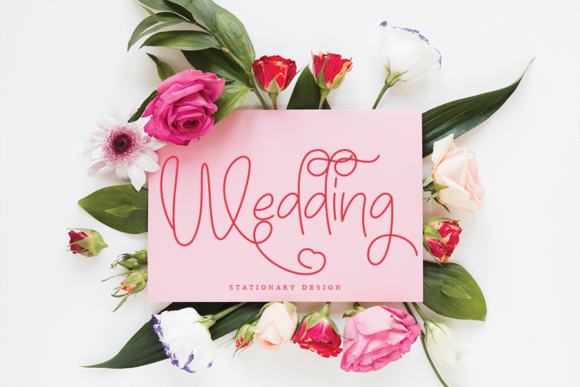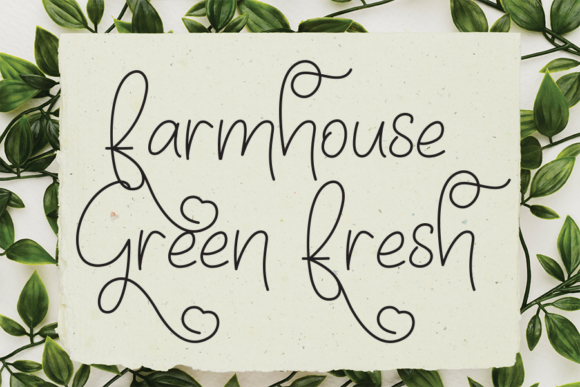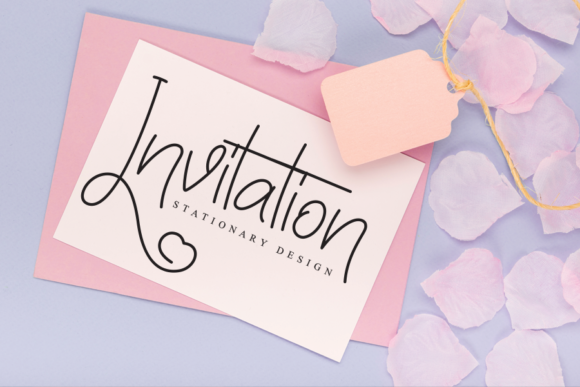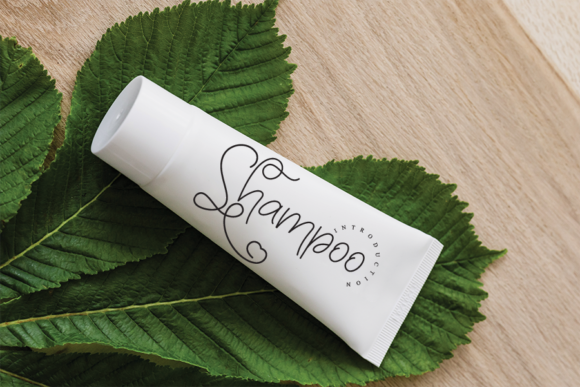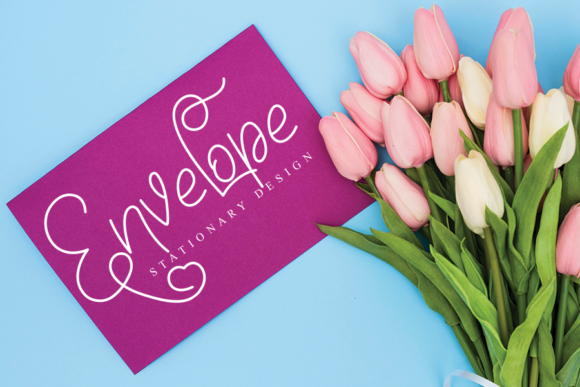
About Makagifa Font
Introducing “Makagifa,” an elegant and flowing handwritten font that exudes beauty and grace. With its well-balanced characters and captivating style, this font is perfect for a wide range of design projects, including logos, stationery art, quotes, book covers, magazines, branding, and much more.
The elegant and flowing nature of “Makagifa” makes it an excellent choice for logos. Its smooth and graceful curves add a touch of sophistication to your brand identity. Whether you’re designing a logo for a boutique, a creative agency, or a personal brand, “Makagifa” will lend a sense of elegance and professionalism to your designs, making them stand out from the crowd.
Stationery art becomes a true masterpiece with the help of “Makagifa.” Its beautiful and well-balanced characters make it a perfect choice for creating stunning designs on various stationery items, including art prints, notecards, letterheads, and more. The elegant and flowing style of “Makagifa” adds a touch of sophistication to your stationery, making it more visually appealing and memorable.
Quotes take on a whole new level of beauty with the use of “Makagifa.” Its flowing and graceful letters bring your words to life, creating a sense of harmony and balance. Whether you’re creating social media graphics, quote posters, or inspirational prints, “Makagifa” will add an elegant touch to your quotes, making them visually captivating and impactful.
Book covers and magazines become visually striking with the addition of “Makagifa.” Its elegant and flowing characters create a sense of allure and intrigue, drawing readers’ attention and setting the tone for the content inside. Whether you’re designing a book cover for a novel, a magazine layout, or any publication that requires a touch of elegance, “Makagifa” will make your designs stand out on the shelves.
Branding becomes more memorable and distinctive with the use of “Makagifa.” Its beautiful and well-balanced characters add a sense of sophistication and uniqueness to your brand identity. Whether you’re designing branding materials such as business cards, letterheads, or packaging, “Makagifa” will give your brand a refined and professional look.
In summary, “Makagifa” is an elegant and flowing handwritten font that adds beauty and grace to a variety of design projects. Its well-balanced characters make it perfect for logos, stationery art, quotes, book covers, magazines, branding, and more. Incorporate “Makagifa” into your most unique ideas to create visually striking and memorable projects that stand out from the crowd.